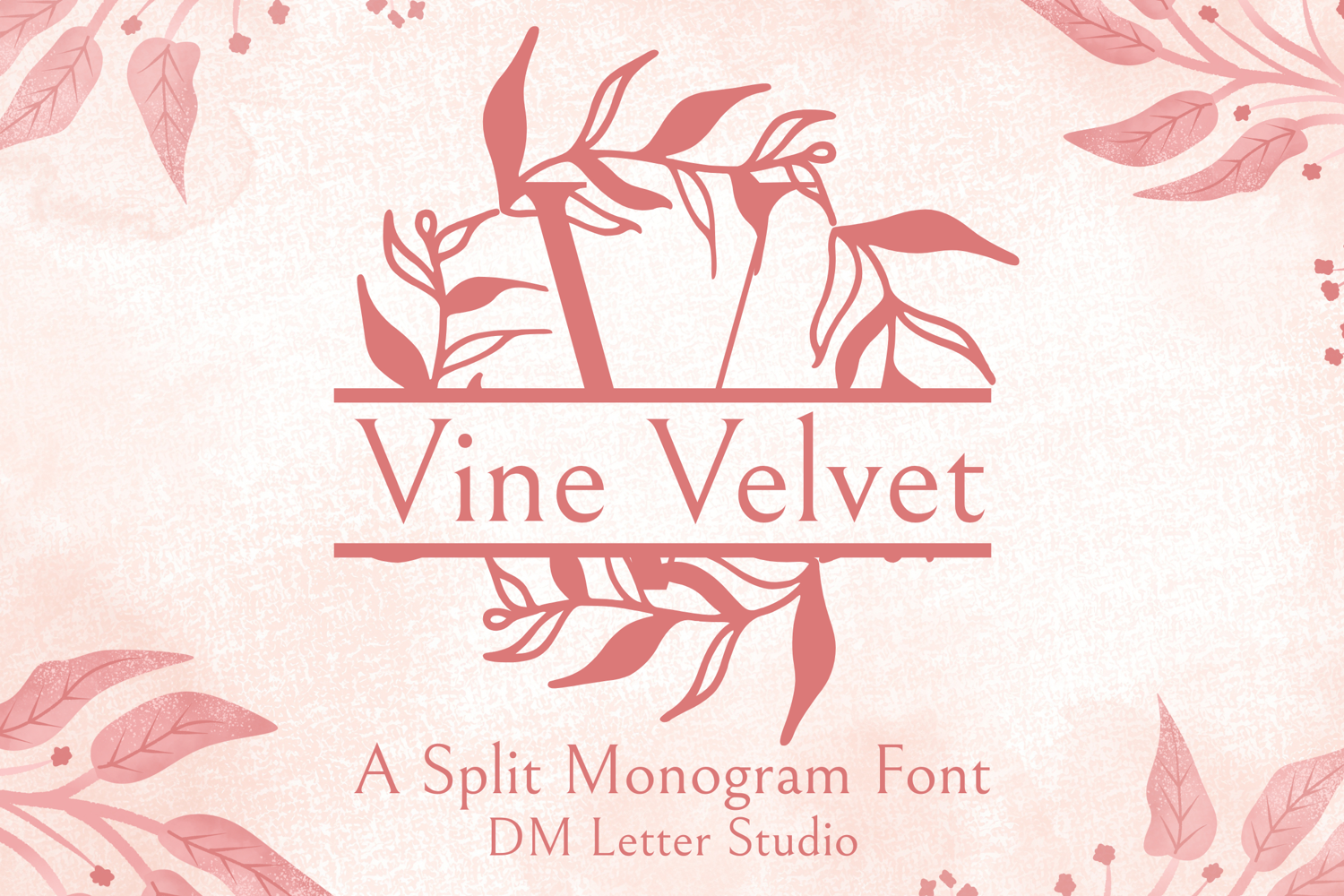
Vine Velvet Split Monogram - Botanical Split Serif Font
Vine Velvet Split Monogram
Vine Velvet Split Monogram – Botanical Split Serif Font with Elegant Vine Accents
Vine Velvet Split Monogram is a refined serif font with a split-letter format, delicately enhanced by flowing vine and leaf illustrations. Each uppercase character is beautifully divided to allow for name or text customization while being wrapped in graceful botanical flourishes. Ideal for elegant weddings, nature-themed branding, and customized Cricut projects.
• Split Monogram Style: Horizontal break in each letter makes customization easy.
• Botanical Vine Embellishments: Intricate vines and leaves add a touch of natural luxury.
• Timeless Serif Base: Classic serif forms ensure sophistication and readability.
• Ideal For: customized name signs, wedding invitations, Cricut projects, branding logos, and custom stationery.